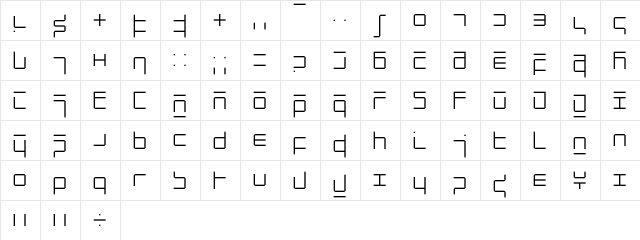
NewAlphabet One
Design Context for NewAlphabet Typeface
NewAlphabet takes a measured approach to typography — its balanced proportions and neutral character make it a reliable workhorse for both digital and print work.